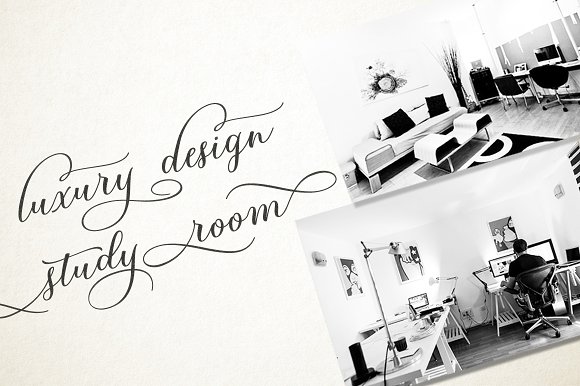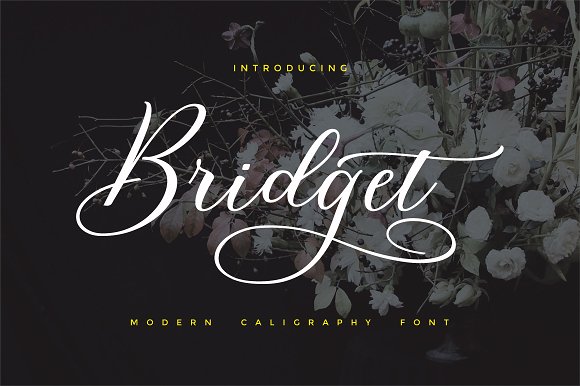
Bridget Calligraphy
Bridget Calligraphy Font
Introducing Bridget Script a new fresh & modern script with a calligraphy style, decorative characters and a dancing baseline! So beautiful on invitation like greeting cards, branding materials, business cards, quotes, posters, and more!